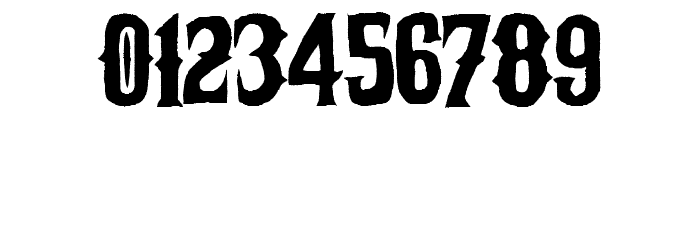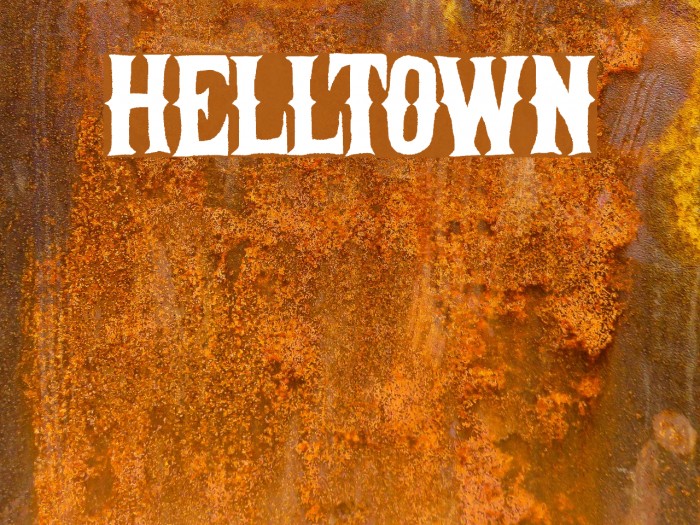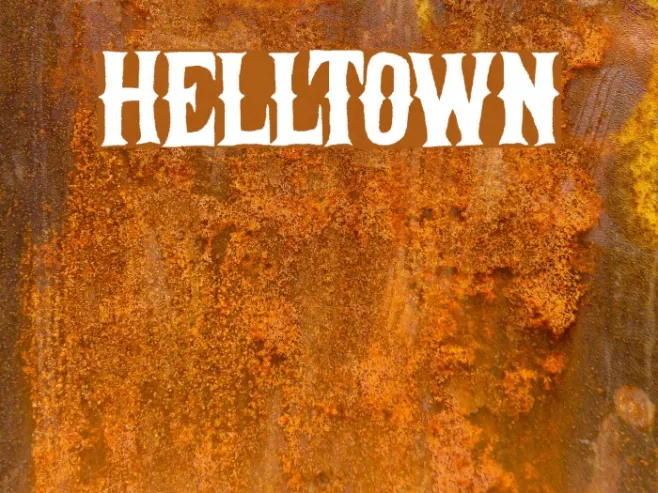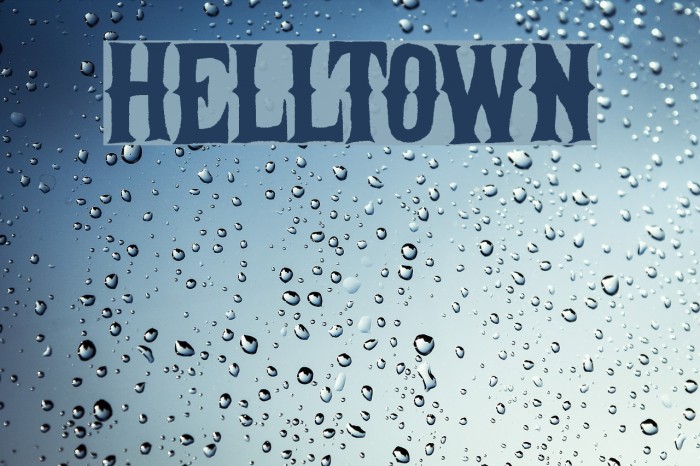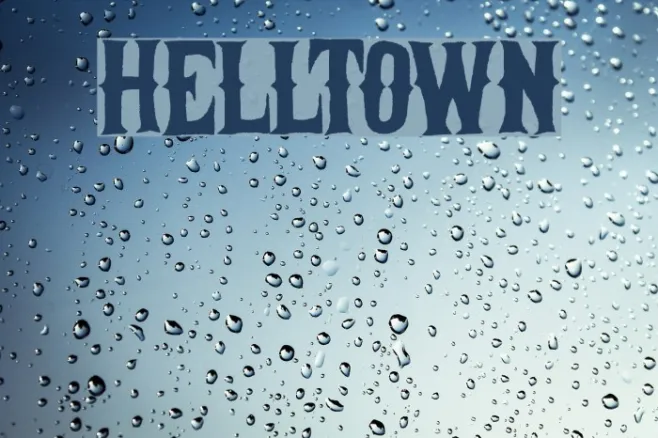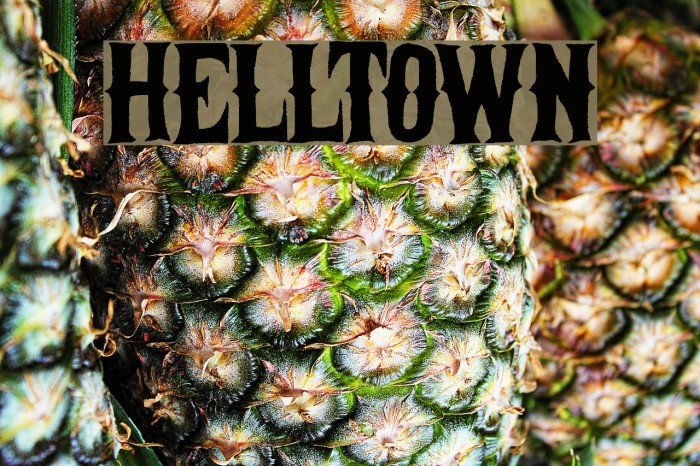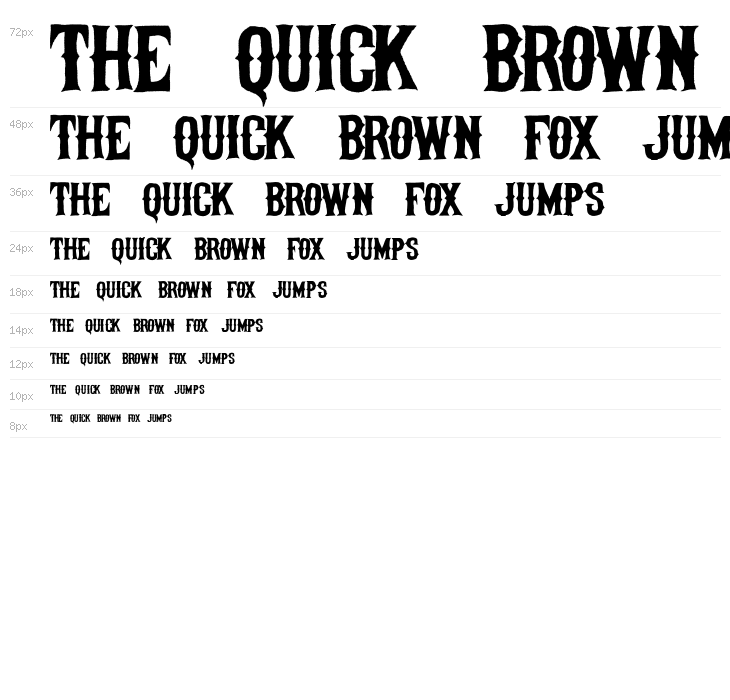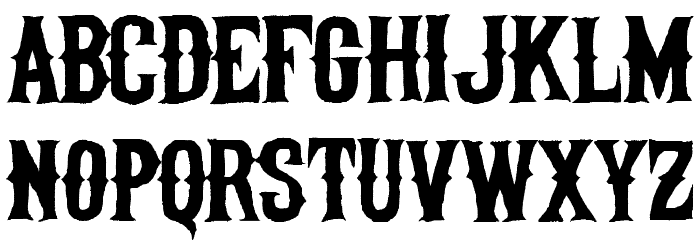
Helltown Font
Helltown Description
This font features a bold and dramatic style with sharp, angular edges and a slightly distressed appearance. The uppercase letters are particularly striking, with exaggerated serifs and a gothic influence that gives them a menacing yet artistic flair. The numbers and special characters maintain this boldness, ensuring consistency across all glyphs. The font's unique design makes it stand out, capturing attention with its strong visual impact.
| Overall Style | Gothic, Decorative |
| Proposed Projects | Ideal for horror-themed posters, Halloween invitations, edgy branding, and album covers. |